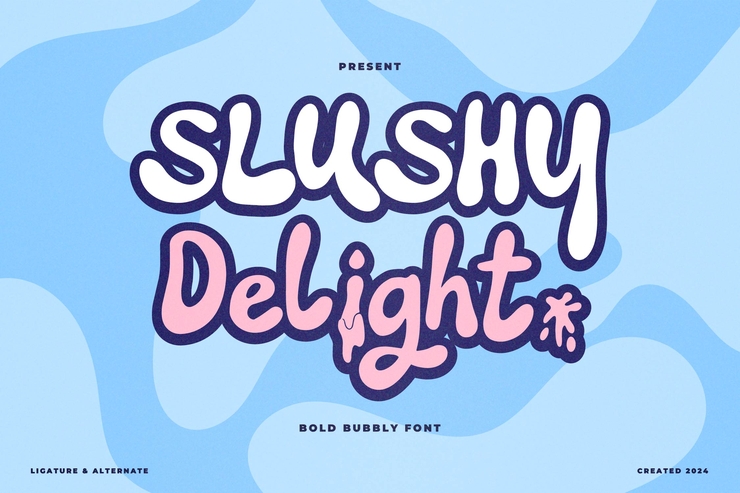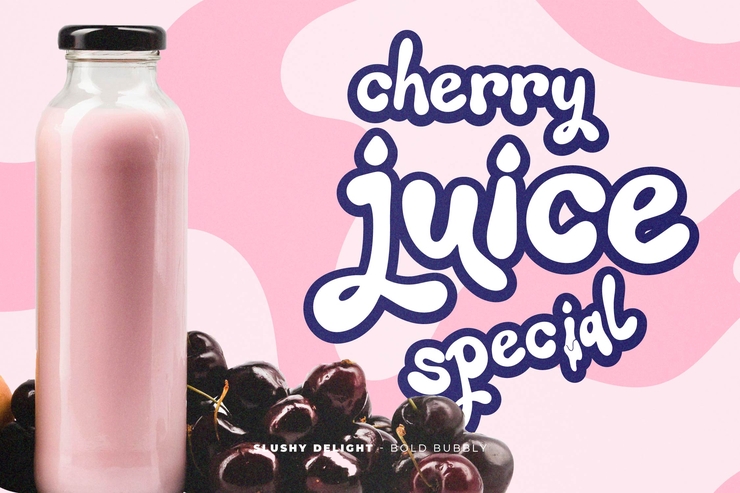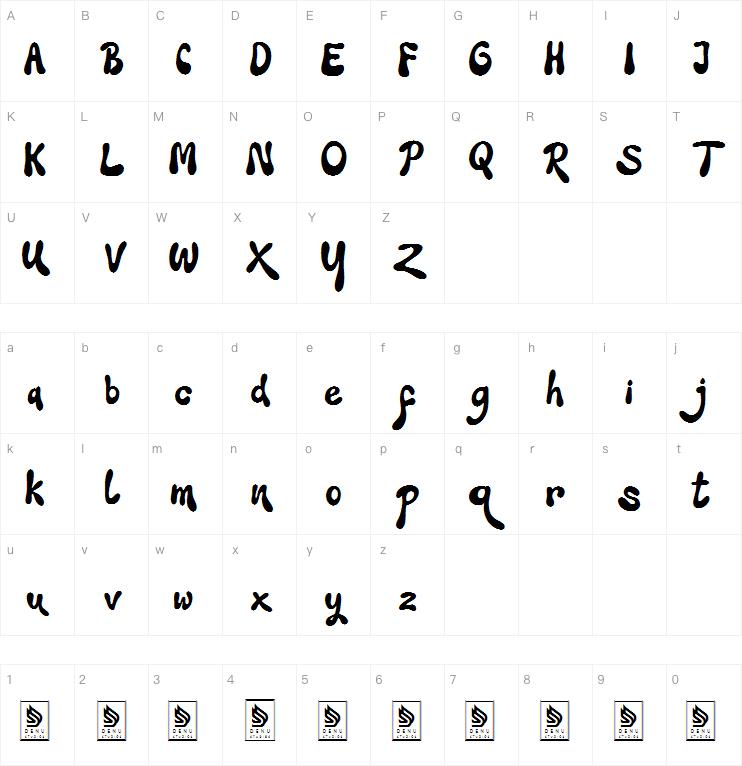
Slushy Delight Font | Modern Trendy Tech Style Display Typeface
Slushy Delight is a premium modern English typeface featuring stylish trend aesthetics and futuristic tech sense. This font comes with sleek smooth strokes, fashionable letter shapes and a cool technological atmosphere, ideal for all kinds of modern creative design work. It maintains excellent readability while possessing strong visual impact and trendy personality, perfectly matching youth fashion, technology brands, digital products and street style design scenarios. Suitable for logo design, brand signage, poster headlines, social media visuals, packaging design, game UI and trendy advertising layouts. The font supports mainstream design software, easy to install and fully editable, allowing designers to freely adjust size, color and effect without complicated operations. Add unique fashion and futuristic tech charm to your design projects with Slushy Delight font. Free for Commercial Use / No Copyright